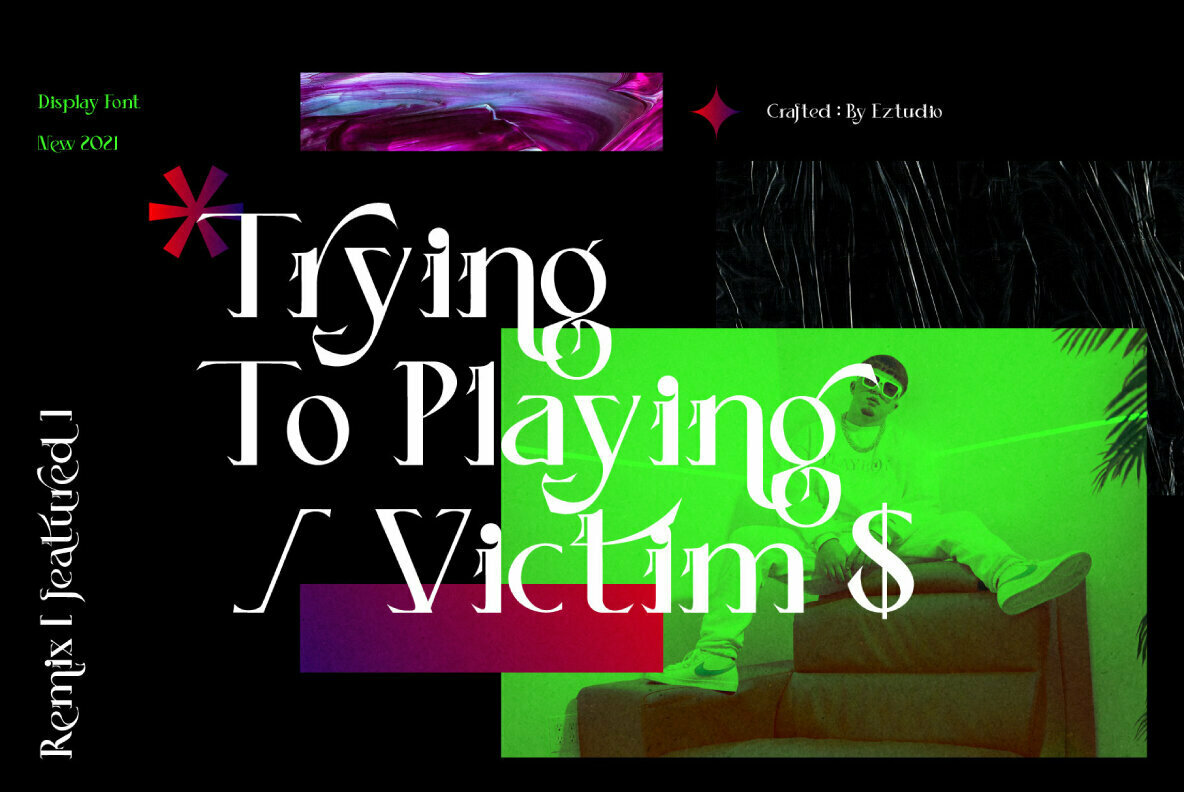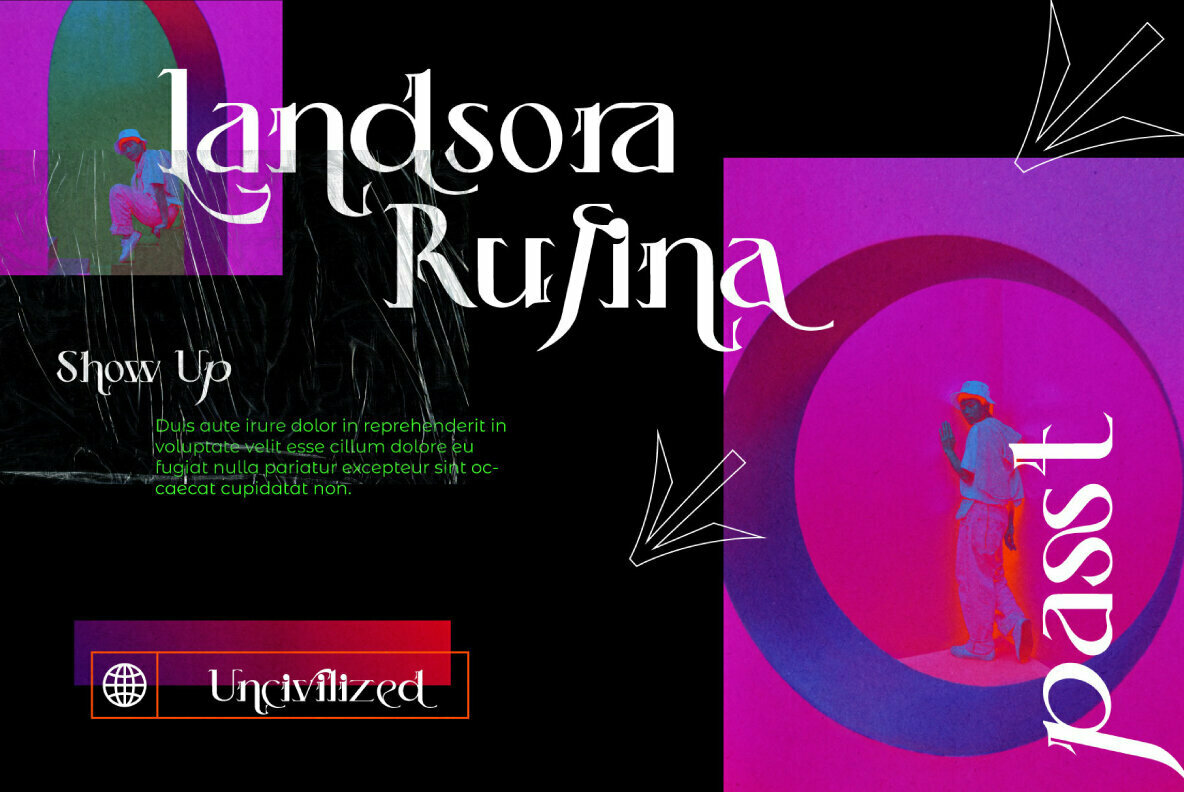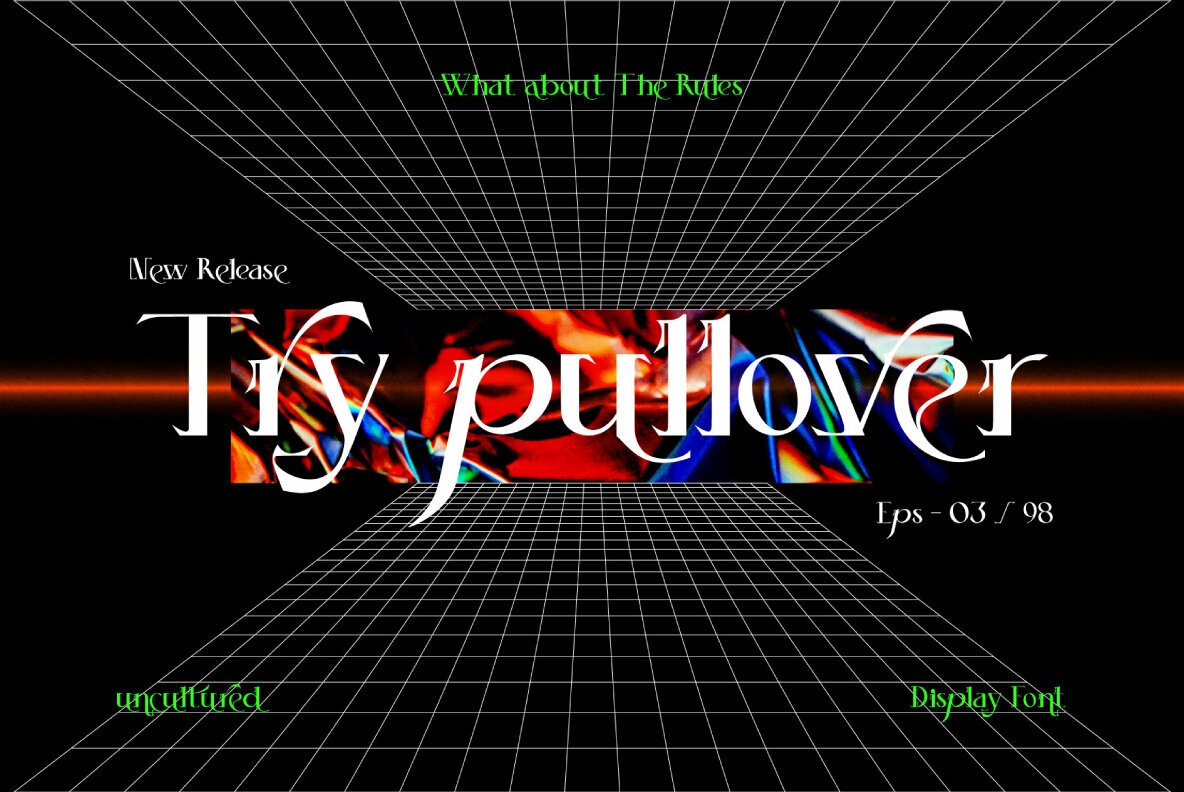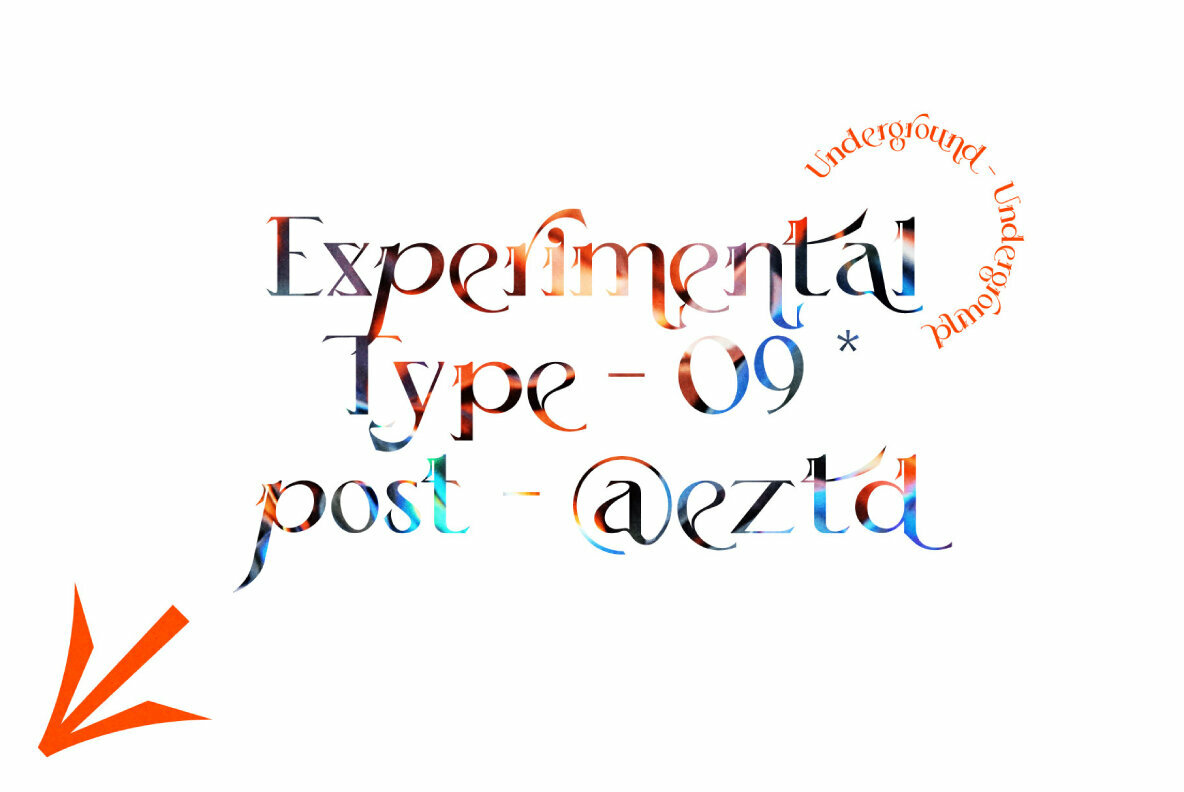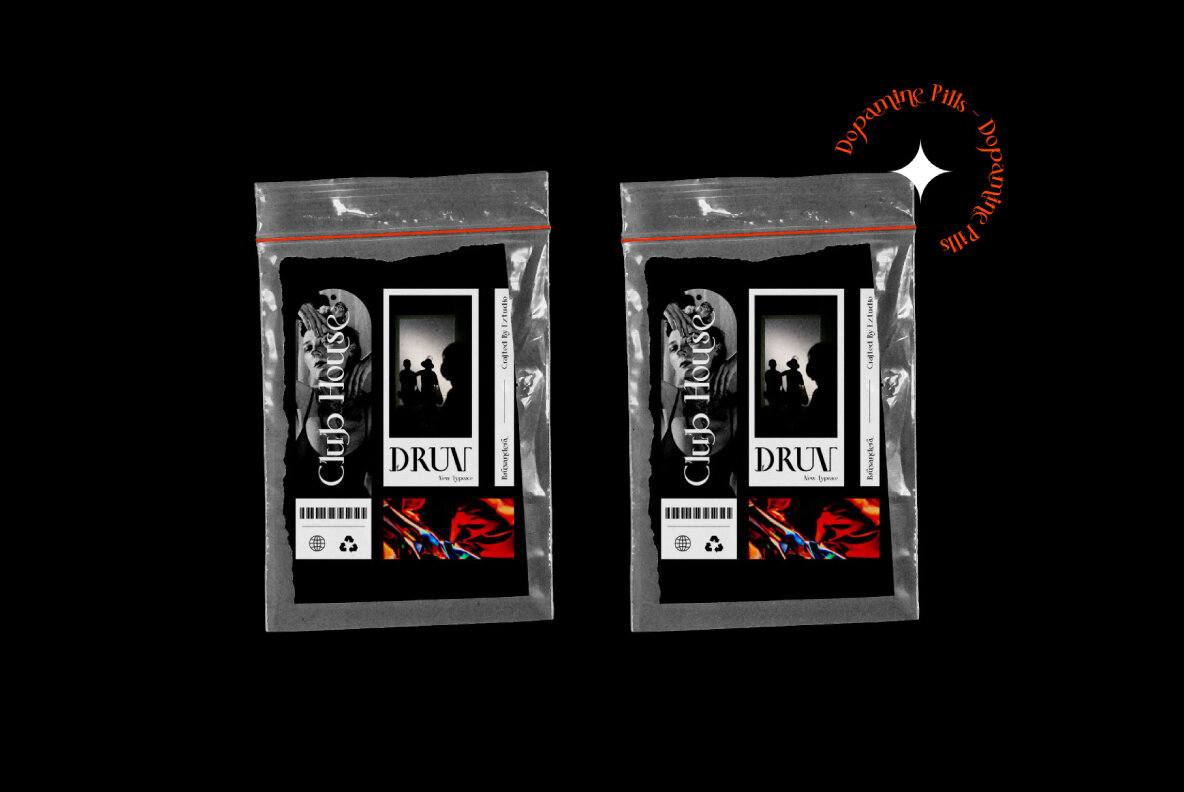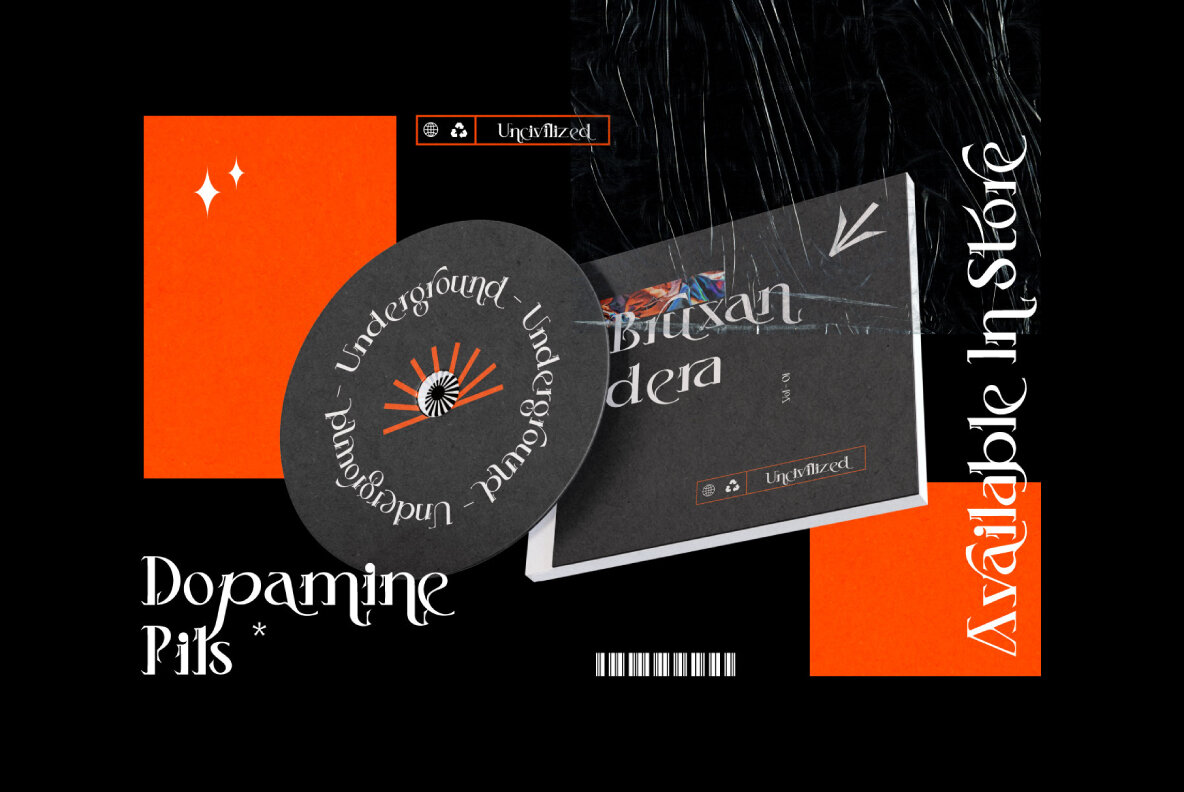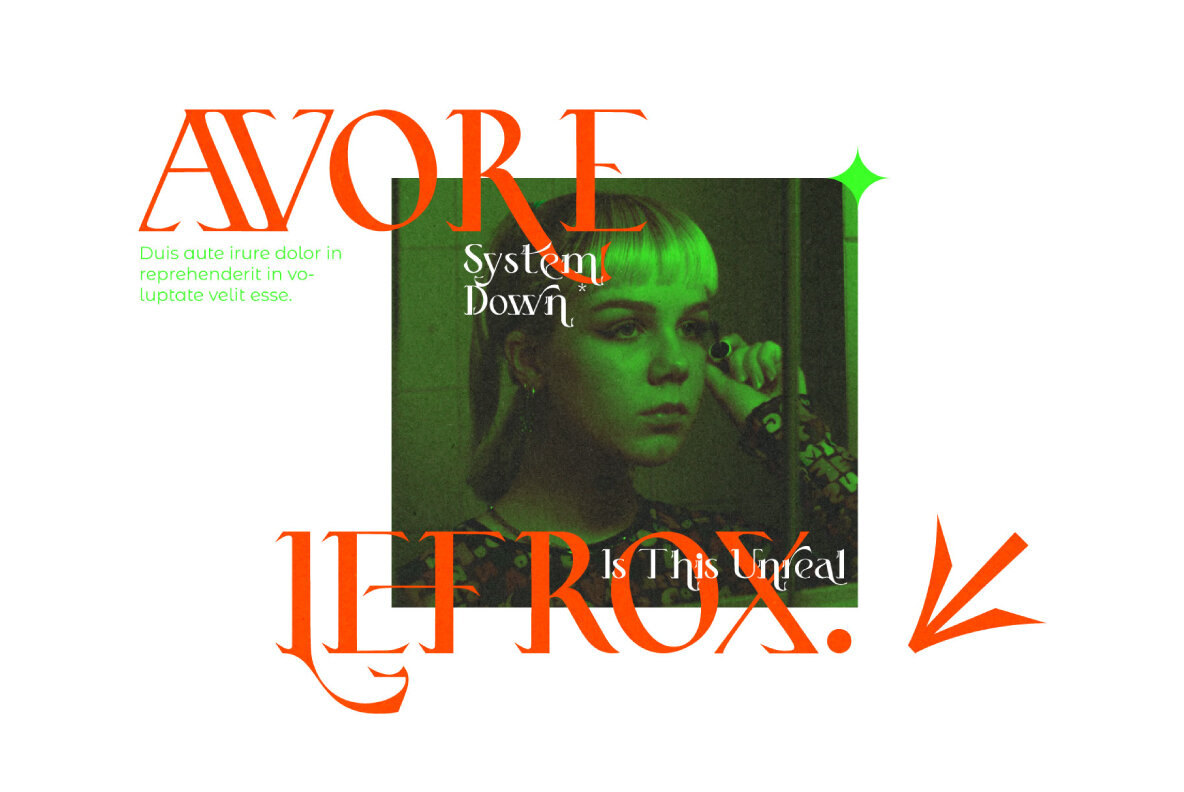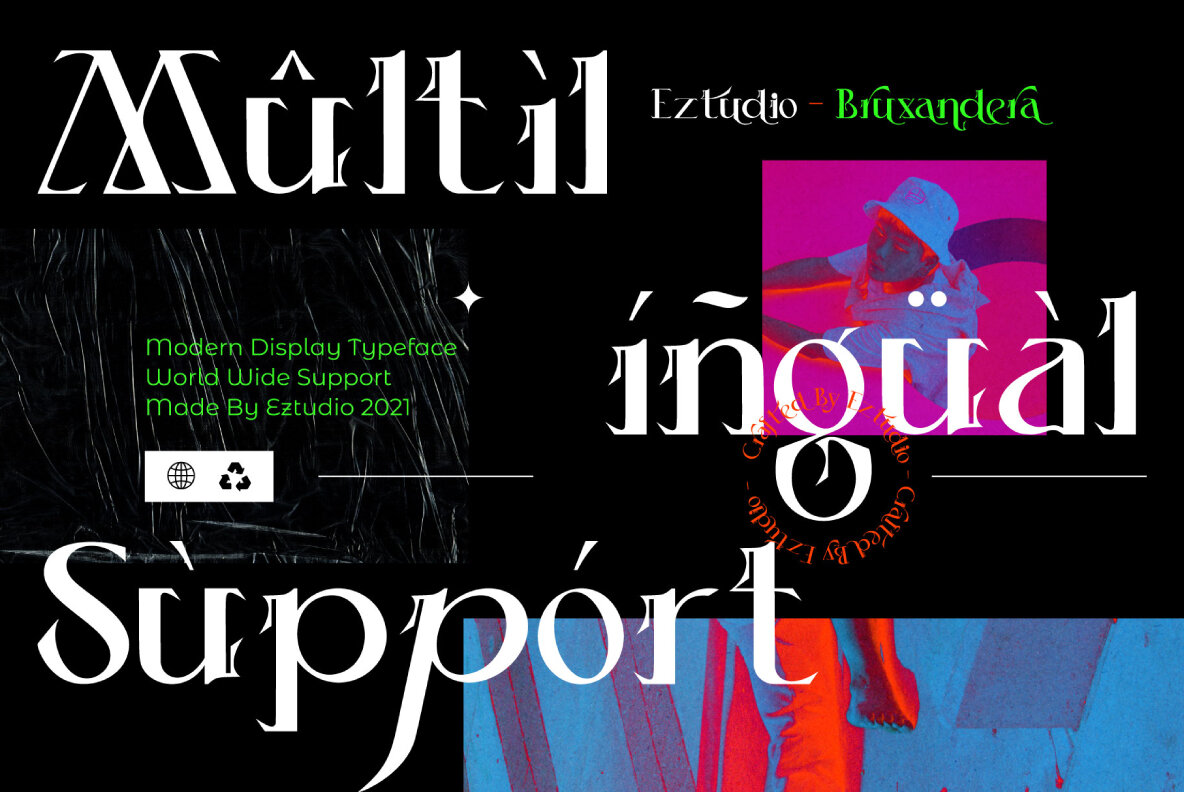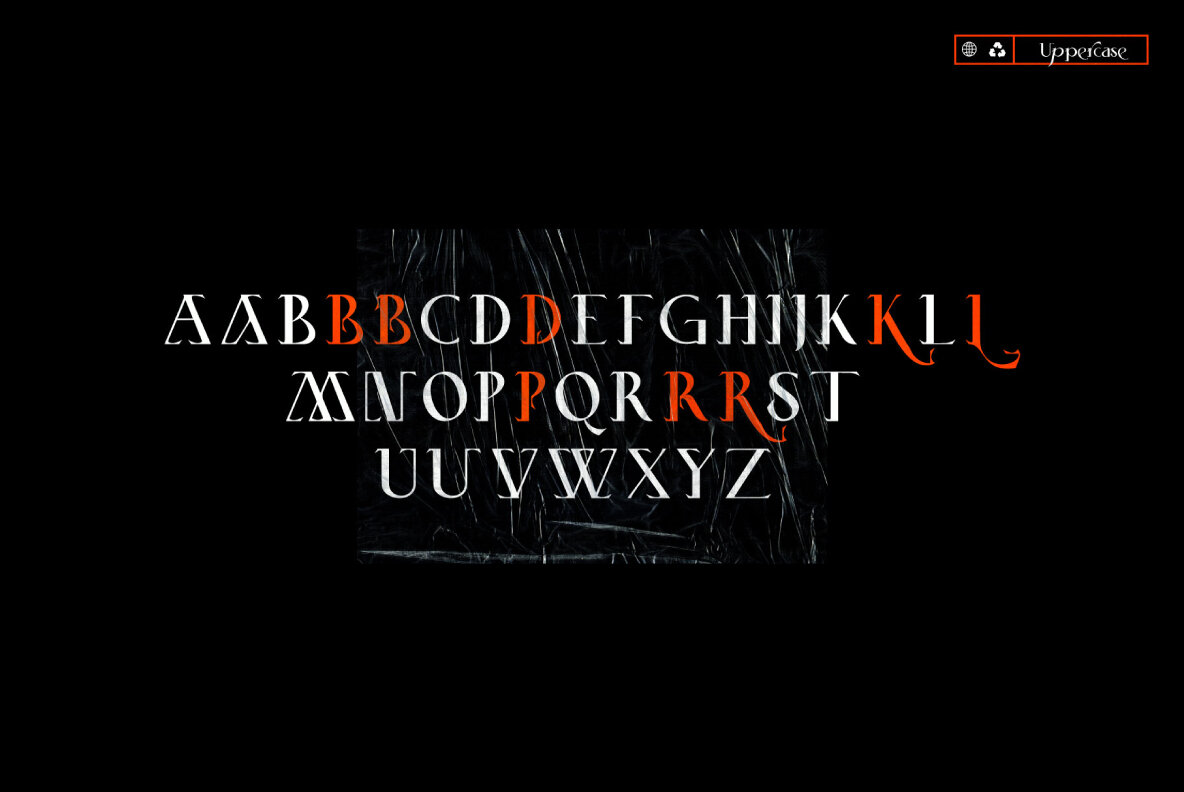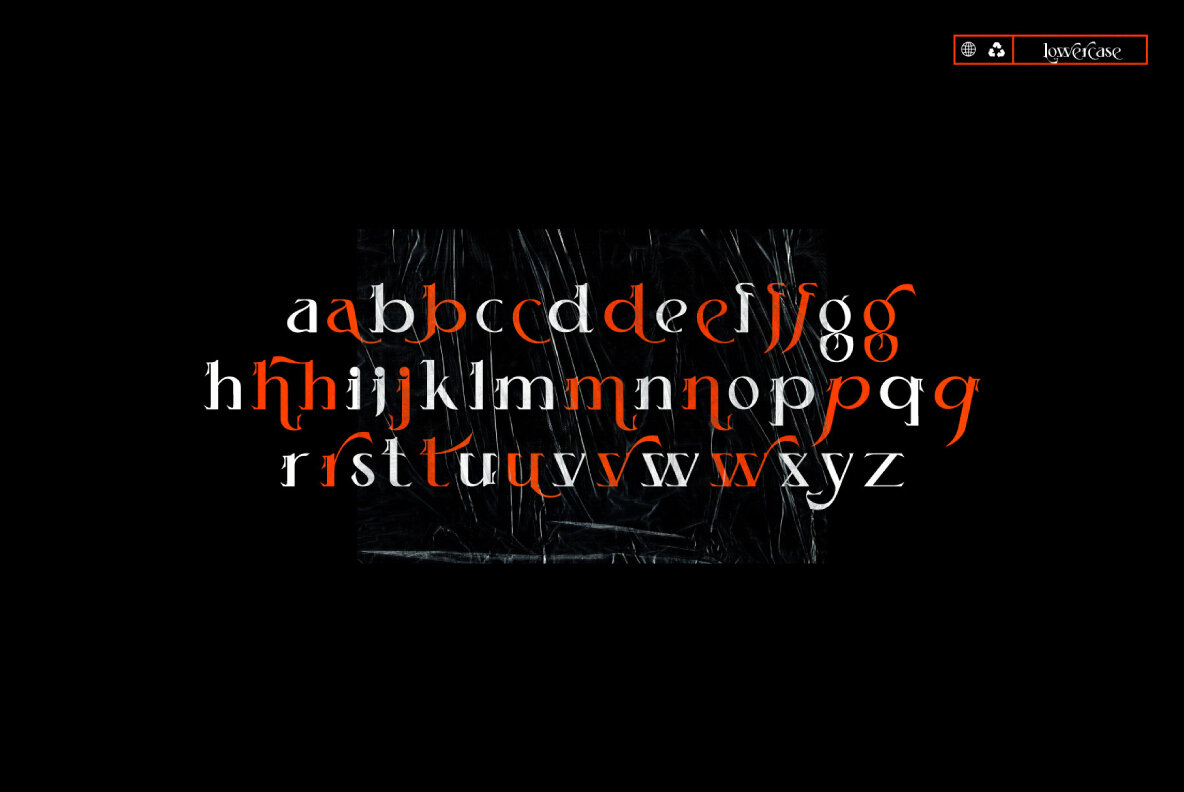
Bruxandera Font
Bruxandera
Bruxandera is a serif font that merges classic elegance with a modern aesthetic. Its bold and unique style is ideal for those looking to create visually striking designs that stand out. This font includes uppercase and lowercase letters, numbers, alternatives, ligatures, and punctuation, offering a versatile toolkit for various projects.Bruxandera: A Classy Serif with Modern Flair